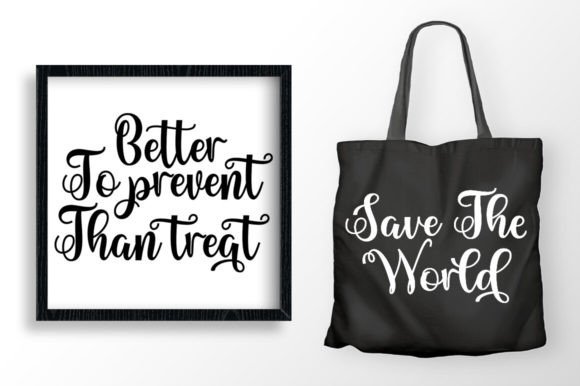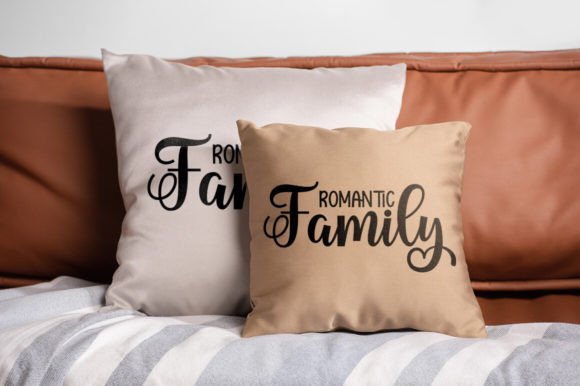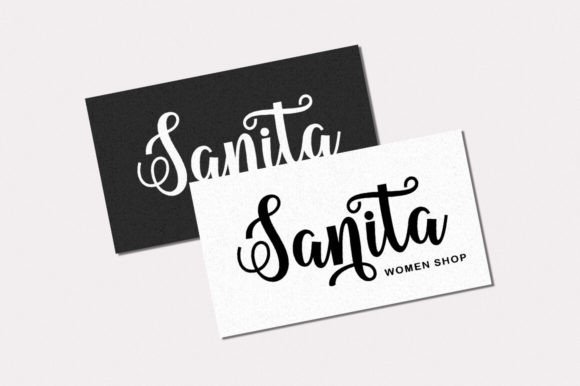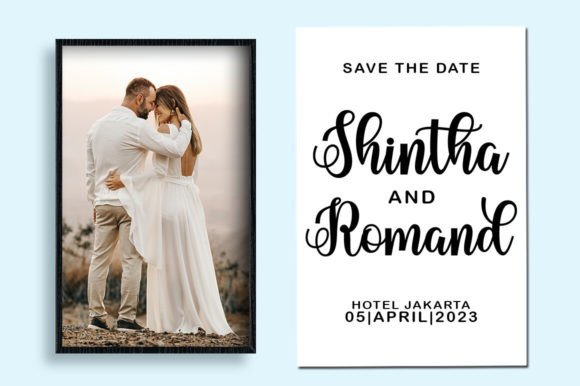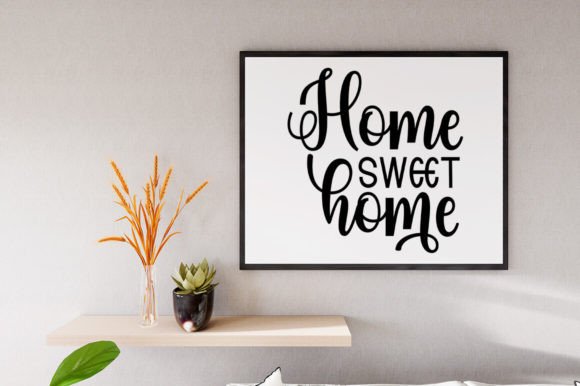
Introduction to Hello Sweetness Font Font
Fonts play a crucial role in design, and the Hello Sweetness Font font is a typeface that brings both character and versatility to any project. Whether you’re working on a branding project, a website, or a print design, the Hello Sweetness Font font offers a unique style that can elevate your work.
Hello Sweetness is a new modern script font with an irregular baseline.
Trendy and feminine style Hello Sweetness looks beautiful in wedding invitations, thank you cards, quotes, greeting cards, logos, business cards, and more.
Key Features of Hello Sweetness Font Font
Why Choose Hello Sweetness Font Font?
The Hello Sweetness Font font is more than just a typeface – it’s a design tool that helps you communicate your message with style and clarity. Its unique character set and versatile design make it suitable for a wide range of applications, from elegant invitations to bold headlines.
With its carefully crafted letterforms and balanced proportions, the Hello Sweetness Font font ensures readability and visual appeal across all mediums.
What makes Hello Sweetness Font font special?
The Hello Sweetness Font font stands out with its unique design, exceptional readability, and versatility across various design applications.